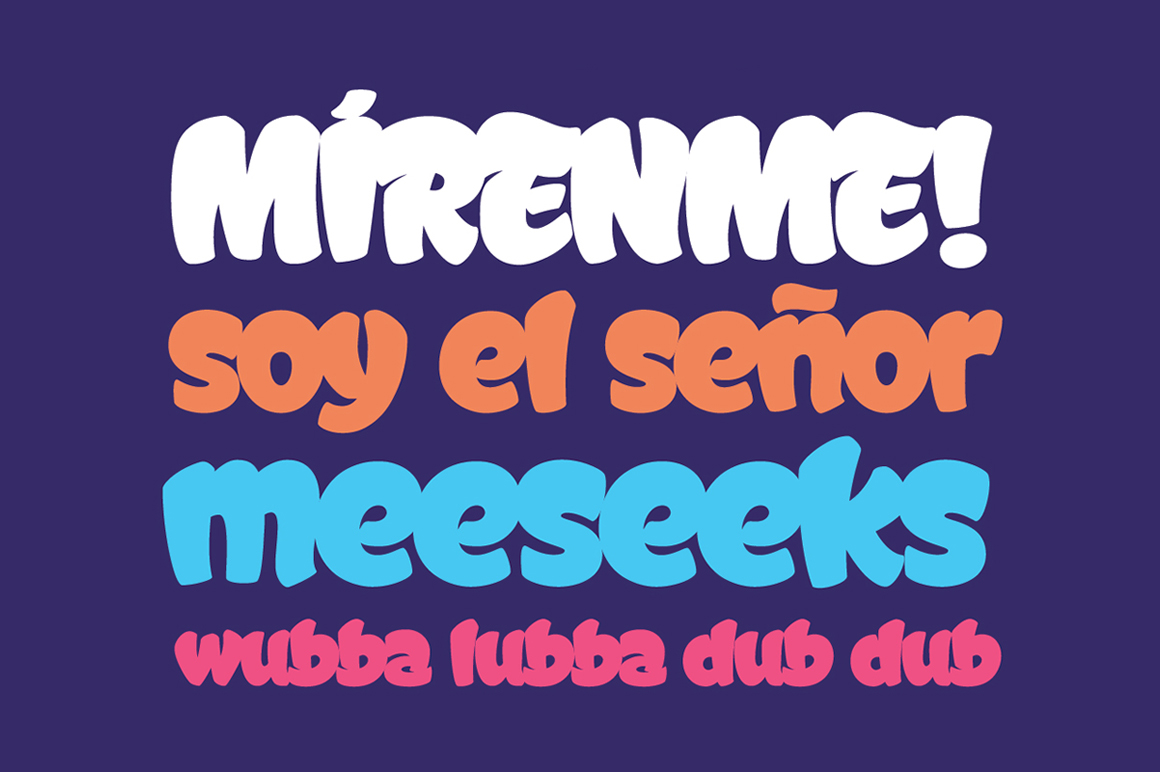
Graffismo is a bold, catchy display font crafted for headlines and titles. It gives your designs a fun, friendly vibe while remaining highly readable and ready for commercial use. Big thanks to Cassette Type Foundry for sharing this freebie — check out their profile for more great typefaces.
- Graffismo — free bold & catchy display font
- Ideal for headlines, titles, posters, banners, and branding
- Uppercase and lowercase characters included
- Special characters, numbers, and symbols included
- Alternatives, ligatures, and additional glyphs included